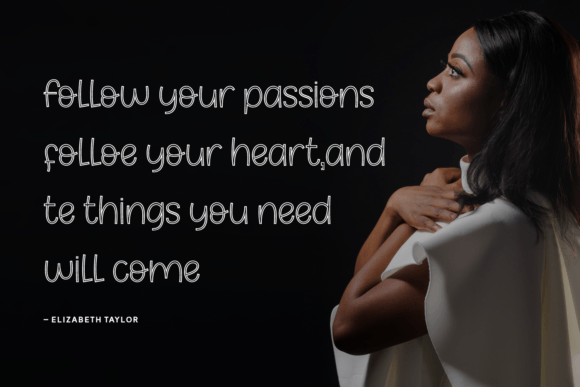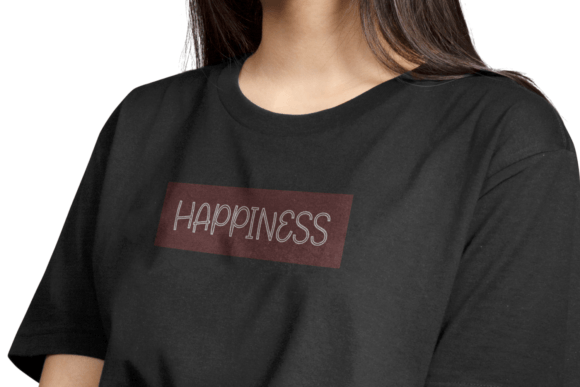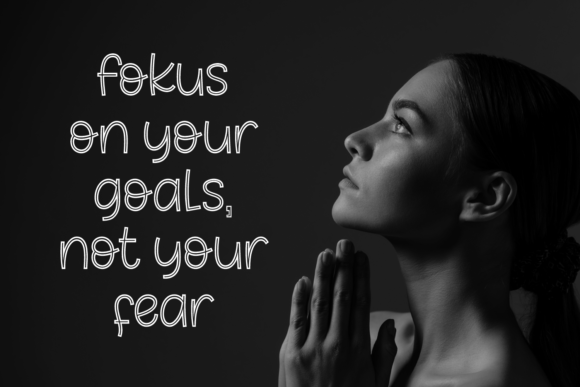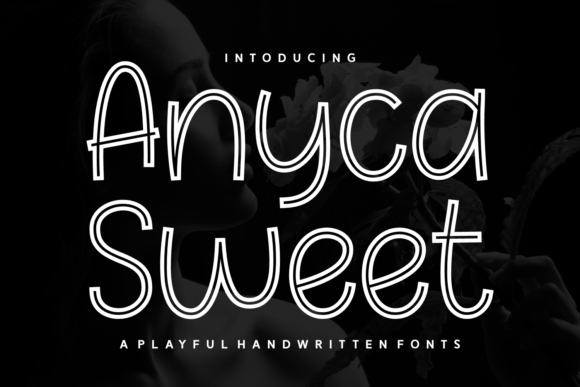
Introducing Anyca Sweet Font: The Perfect Choice for Playful and Whimsical Designs
Are you looking for a font that can add a touch of warmth, playfulness, and joy to your designs? Look no further than Anyca Sweet Font! This delightful, hand-drawn font is perfect for creating a variety of projects, from personal and child-centered designs to casual and fun applications. In this article, we’ll explore the features and benefits of Anyca Sweet Font, and show you how it can elevate your designs to the next level.
The Characteristics of Anyca Sweet Font
Anyca Sweet Font is a unique and charming font that is sure to capture the hearts of designers and crafters alike. Its hand-drawn nature gives it a personal and organic feel, making it perfect for projects that require a touch of whimsy and playfulness. The font’s delicate lines and curves create a sense of movement and energy, adding a dynamic touch to any design.
One of the standout features of Anyca Sweet Font is its versatility. It can be used in a wide range of contexts, from greeting cards and children’s books to invitations, logos, and posters. Whether you’re creating a design for a child’s birthday party or a brand looking to add a playful touch to their marketing materials, Anyca Sweet Font is an excellent choice.
Perfect for Child-Centered Designs
Anyca Sweet Font is particularly well-suited for child-centered designs, such as children’s books, nursery decor, and kids’ party invitations. The font’s playful and whimsical nature is sure to delight kids and parents alike, making it an excellent choice for projects aimed at young audiences.
Imagine creating a colorful and engaging children’s book with Anyca Sweet Font as the main font. The font’s hand-drawn nature and playful feel would bring the story to life, making it a joy to read for kids and parents alike. Similarly, using Anyca Sweet Font for nursery decor, such as wall art and decals, would add a touch of sweetness and innocence to the room.
Great for Personal and Casual Designs
Anyca Sweet Font is not just limited to child-centered designs. Its playful and whimsical nature makes it an excellent choice for personal and casual designs, such as greeting cards, invitations, and social media graphics.
Imagine creating a beautiful and heartfelt greeting card with Anyca Sweet Font as the main font. The font’s delicate lines and curves would add a touch of elegance and sophistication to the card, making it perfect for special occasions like birthdays, weddings, and anniversaries.
Anyca Sweet Font offers a range of benefits for designers and crafters, including:
- Unique and charming design: Anyca Sweet Font’s hand-drawn nature gives it a unique and charming design that is sure to stand out in any project.
- Versatility: The font can be used in a wide range of contexts, from child-centered designs to personal and casual applications.
- Easy to read: Despite its playful nature, Anyca Sweet Font is easy to read, making it perfect for designs that require a clear and legible font.
- Customizable: The font can be customized to fit your design needs, allowing you to adjust the size, color, and style to suit your project.
Anyca Sweet Font is a delightful and charming font that is perfect for designers and crafters looking to add a touch of playfulness and whimsy to their projects. Its hand-drawn nature, versatility, and ease of use make it an excellent choice for a wide range of applications, from child-centered designs to personal and casual projects.
Whether you’re creating a children’s book, a greeting card, or a social media graphic, Anyca Sweet Font is sure to bring a smile to your audience’s face. So why not give it a try and see how it can elevate your designs to the next level?